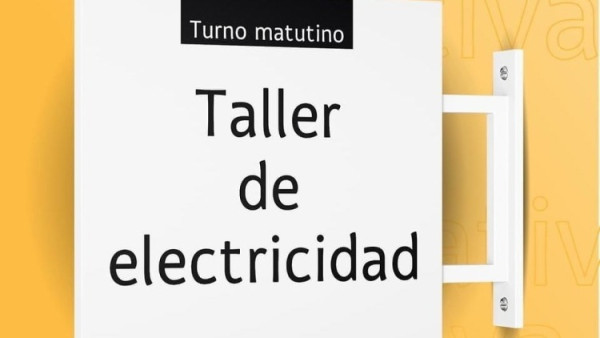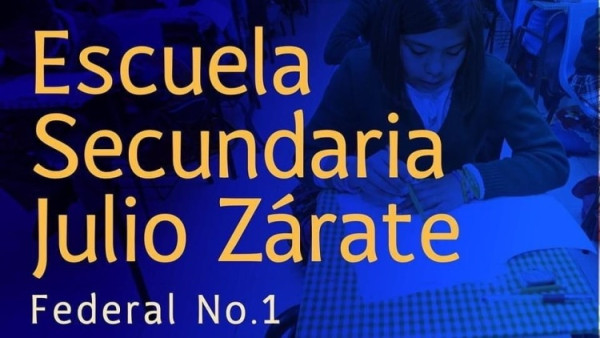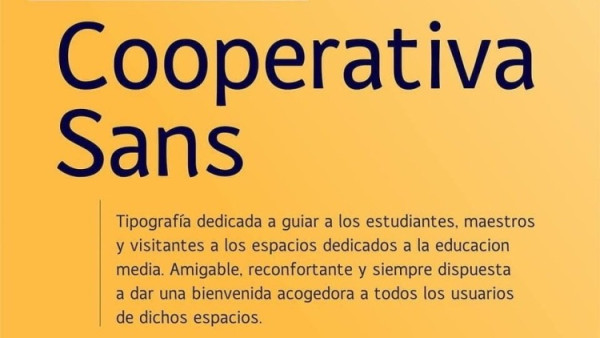
Cooperativa Sans Font is a wayfinding typeface dedicated to guiding students, teachers and visitors inside the spaces destined for secondary education.